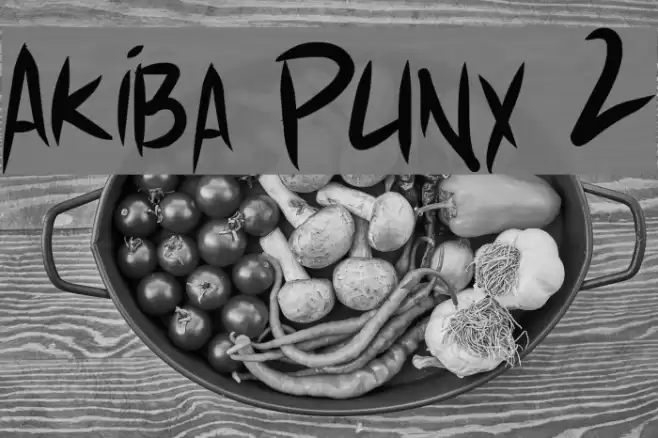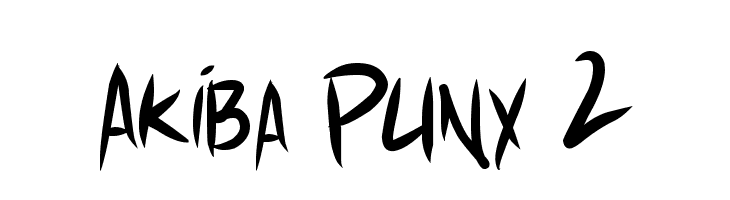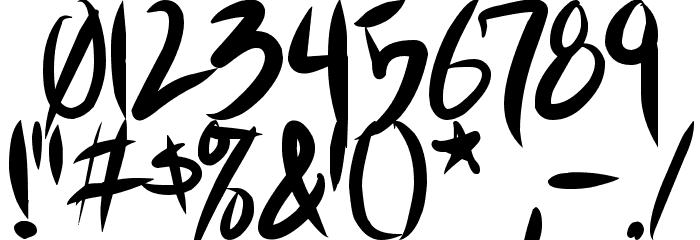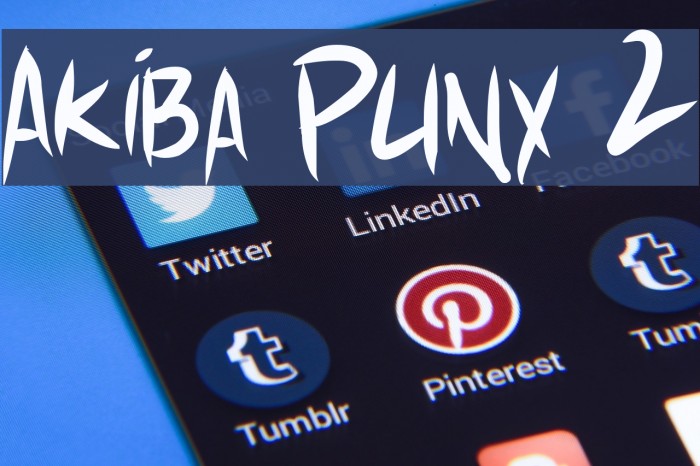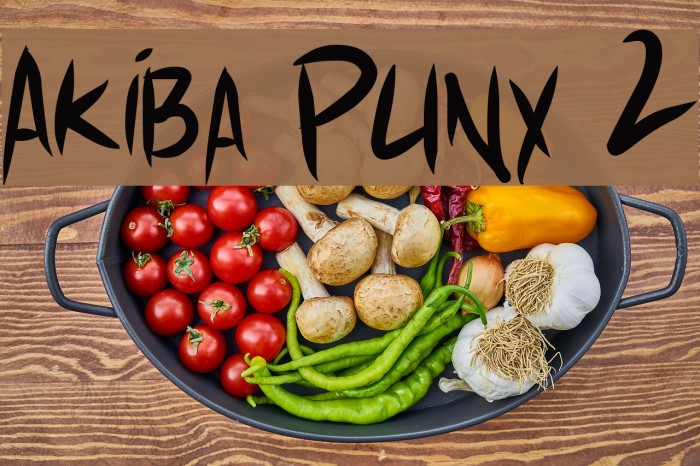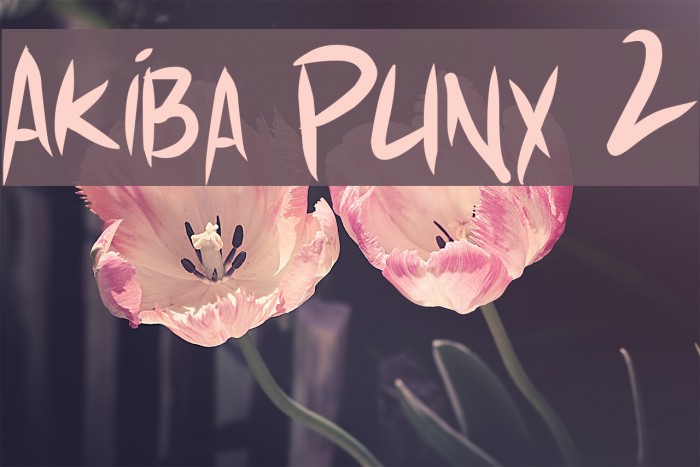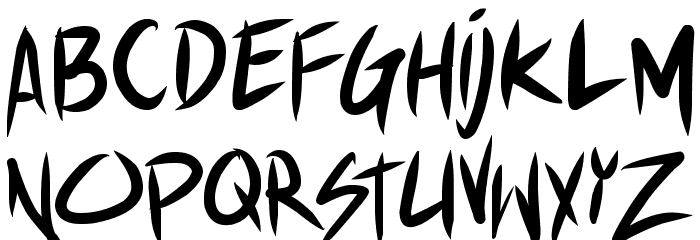
Akiba Punx 2 Font
Akiba Punx 2 Description
This font features a bold and dynamic style with sharp, angular strokes that convey a sense of energy and movement. The letters are crafted with a graffiti-like flair, giving them a rebellious and edgy appearance. The uppercase and lowercase characters maintain a consistent style, with exaggerated curves and pointed edges. Numbers and special characters follow the same aesthetic, ensuring a cohesive look across all elements. The overall design is striking and attention-grabbing, making it ideal for projects that require a bold statement.
A bold, graffiti-inspired font with sharp, angular strokes and a rebellious flair from Uncategorized fonts.
- Proposed Projects: Ideal for street art designs, music album covers, posters, and branding for edgy or alternative brands.
- Overall Style: Modern, Edgy